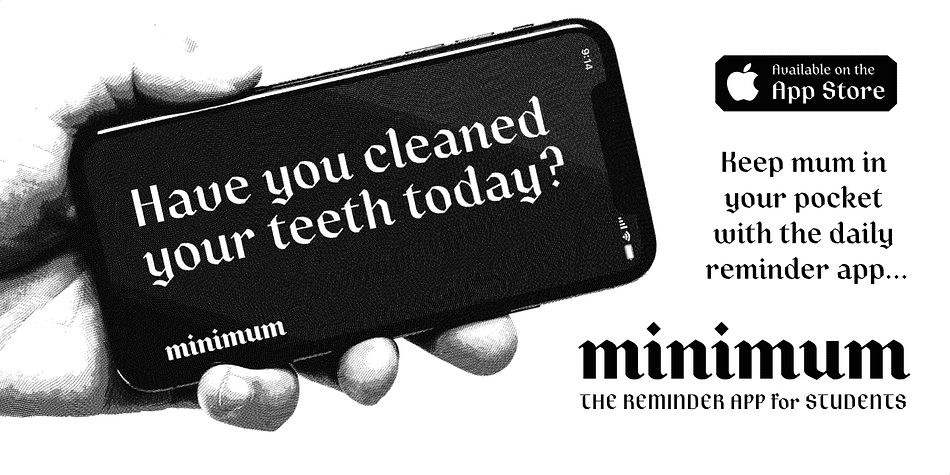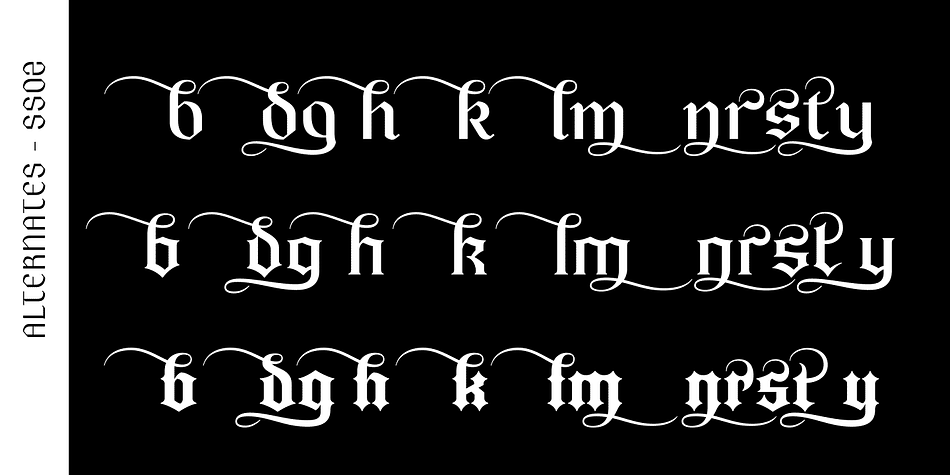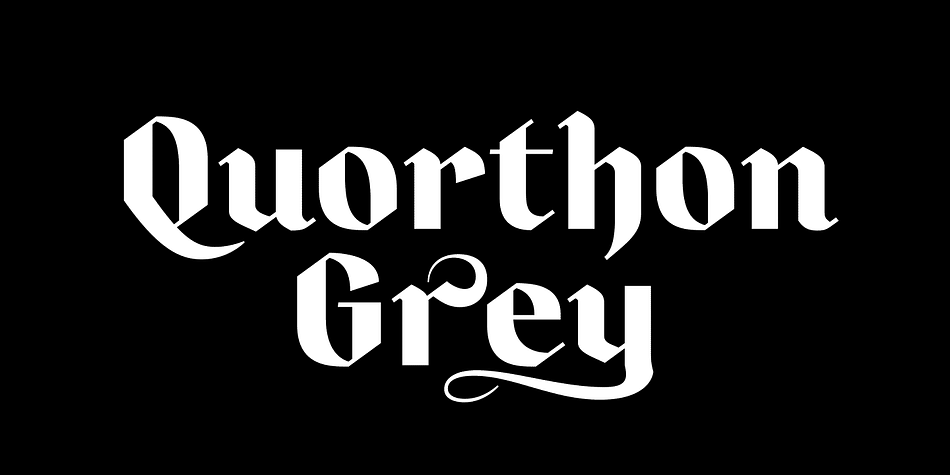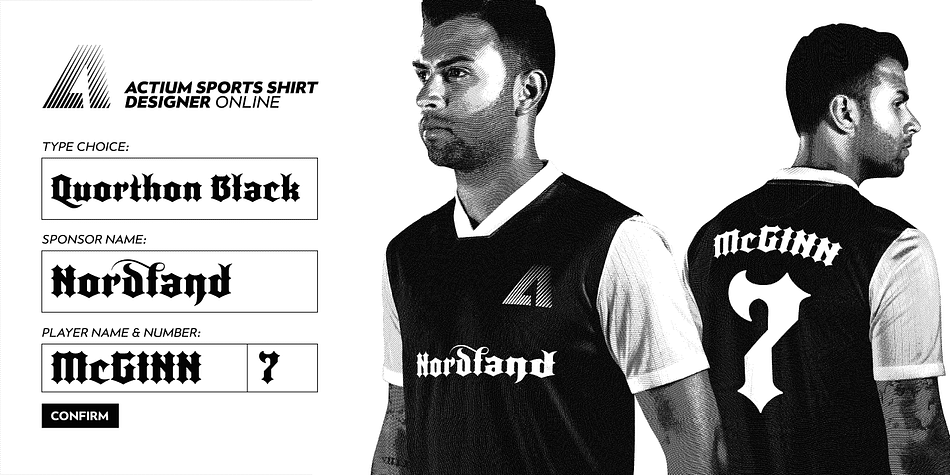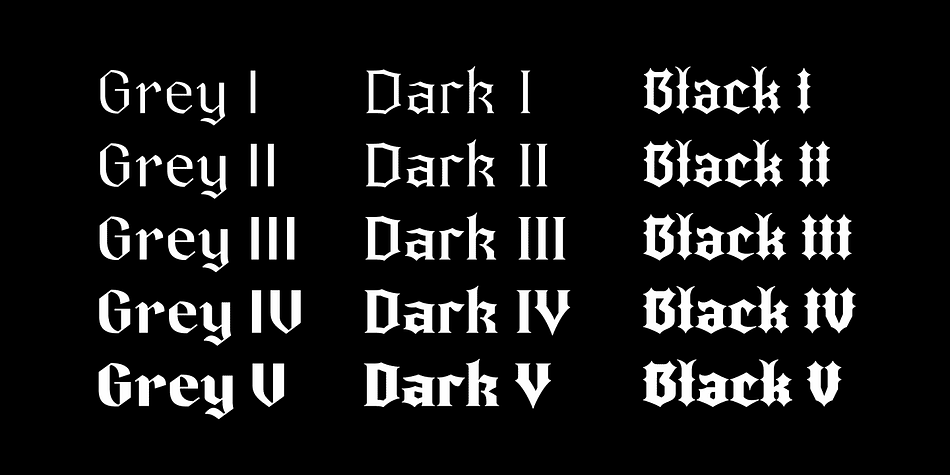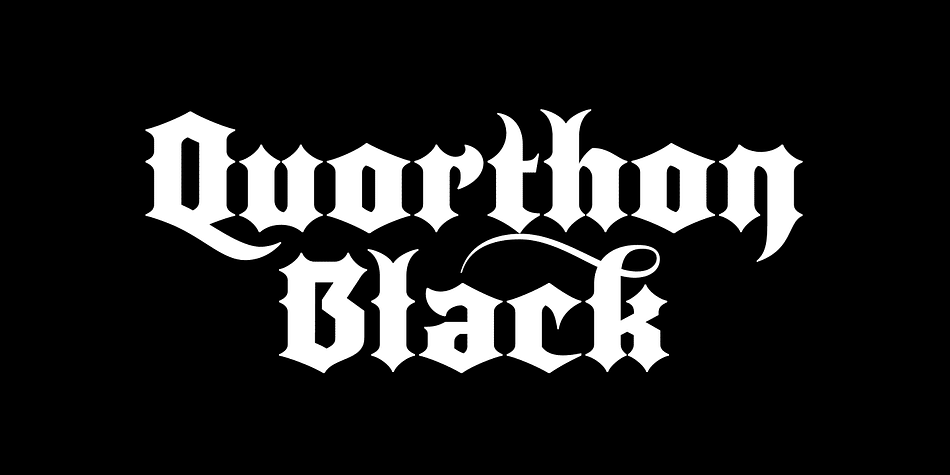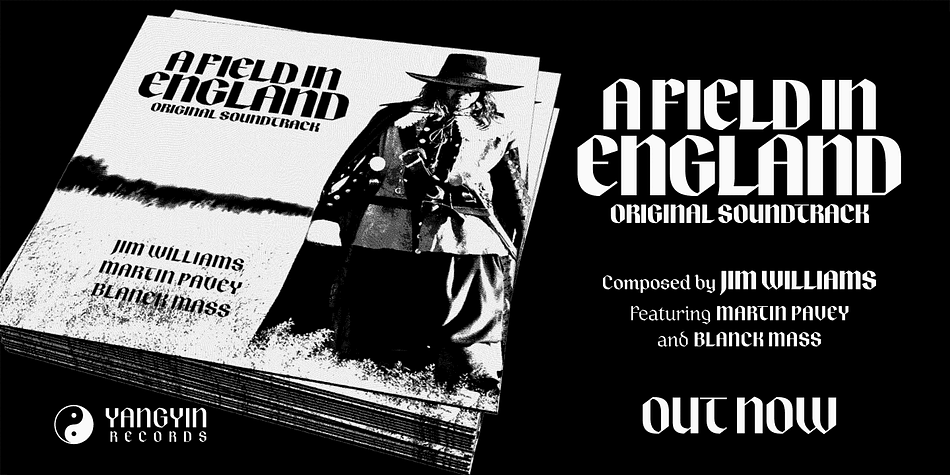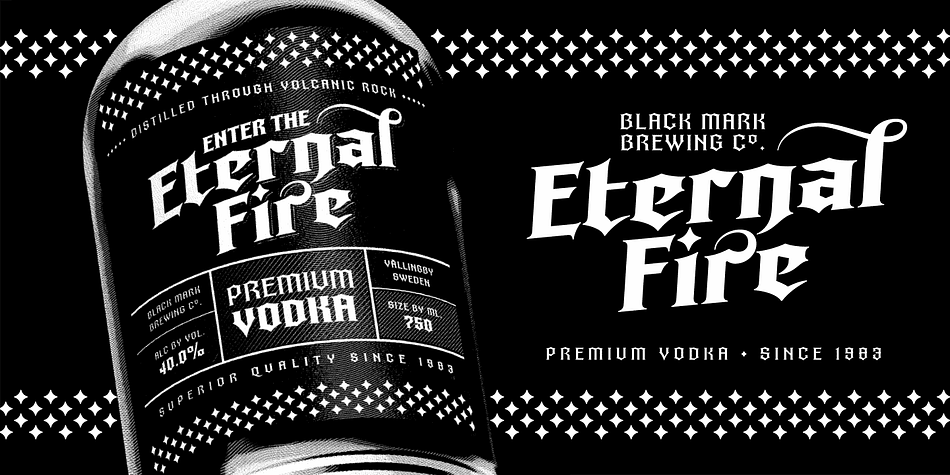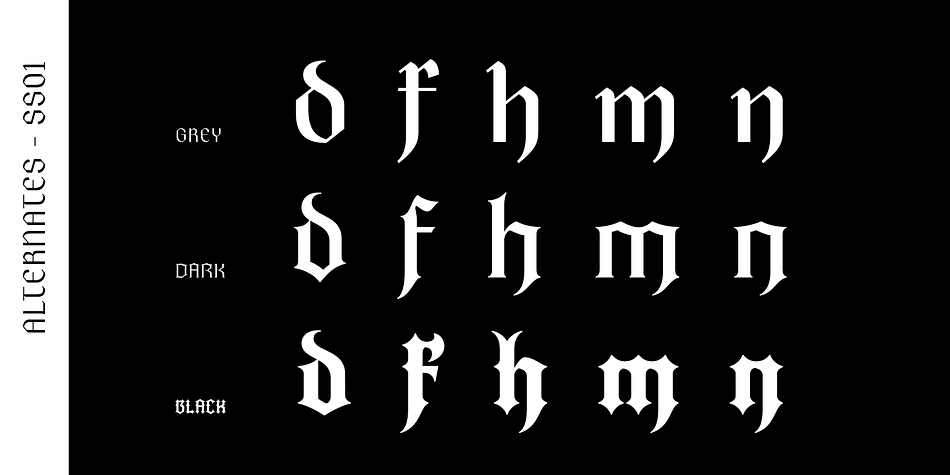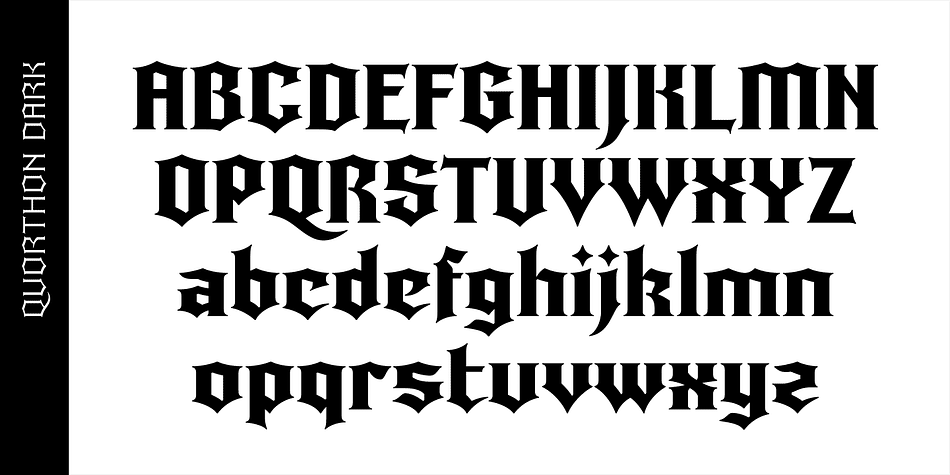
Designed by Paulo Goode, Quorthon is a blackletter font family. This typeface has fifteen styles and was published by Paulo Goode.
Quorthon is a collection of blackletter style fonts in 3 distinct voices – Black, Dark, and Grey. Each style has a more contemporary feel than the centuries-old blackletter standard, the capitals in particular were drawn to aid legibility in today’s world rather than to follow tradition. All the fonts contain a number of alternates that will help you embellish your typography – when used subtly, they can add flair to your titles and logo designs.
BLACK is the most severe of the three styles, its lowercase forms were inspired by text I discovered on a marble tomb in a remote countryside church in England. The aggressive barbs and spurs give these fonts an imposing stature, ideal for branding, advertising and logotype, where a forceful message is required.
DARK is a little more subtle, while retaining a barbed style, more contemporary serifs are present. The highly-contrasted, calligraphic glyphs are full of character and subtle nuances that give these fonts a unique personality. Again, these fonts are perfect for branding, advertising and logotype designs… and maybe even a tattoo?
GREY is the softest of all the Quorthon styles, its minimal design and clean, straight lines make it ideal for creating stunning titles and headlines. It evokes the past with its blackletter pedigree, yet is imbued with a modern architectural influence.